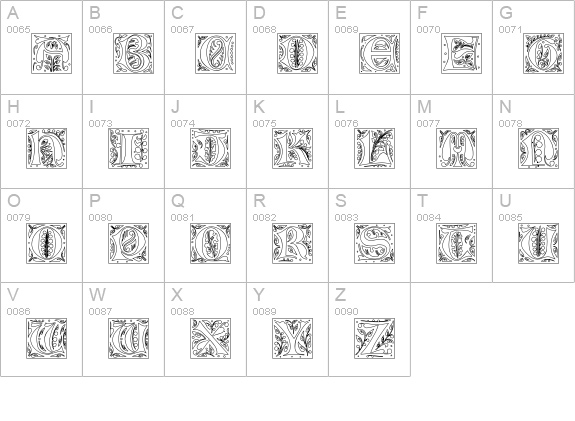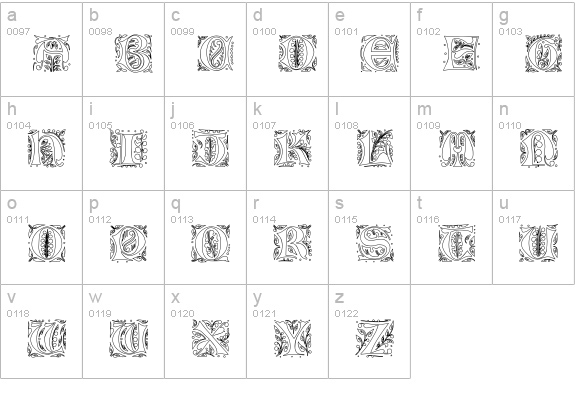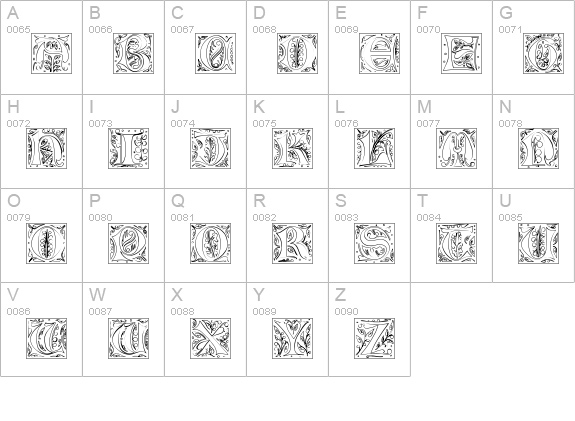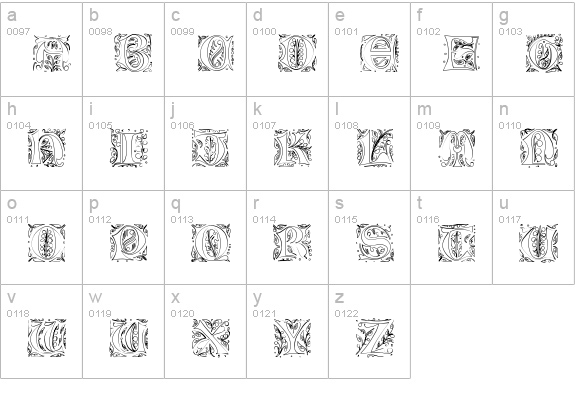
GothicIlluminate font is a stunning display typeface that exudes a sense of mystery and elegance. Its intricate details and sharp edges make it perfect for creating gothic-inspired designs that command attention. The font features ornate embellishments and a unique vintage flair that adds a touch of sophistication to any project. What makes GothicIlluminate font even more appealing is that it is available for free download at FontsMarket.com. This means that you can easily access this exquisite font and use it in your personal or commercial projects without any cost. With its timeless appeal and versatile design, GothicIlluminate font is sure to elevate your creations to new heights. Add a touch of drama and allure to your designs with this exquisite typeface today!